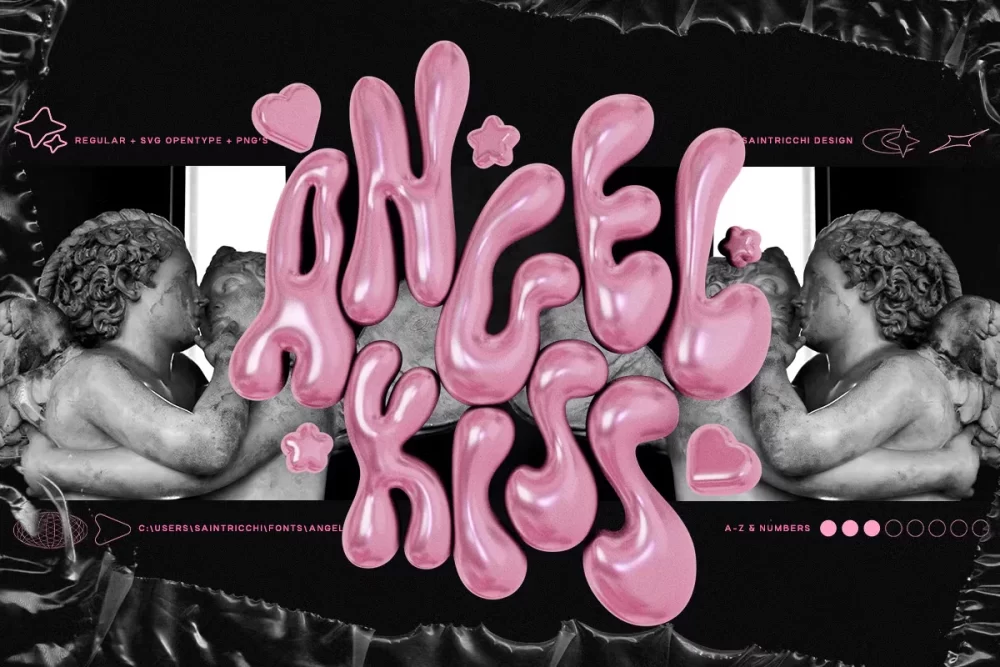
Angel Kiss is a liquid display font known for its elegant and flowing characters. It’s designed to create a visually striking and dynamic effect in designs.
Universal Appeal: Angel Kiss doesn’t just stop at aesthetics; it embraces the Latin alphabet with grace and sophistication. Every character is a testament to the perfect blend of style and readability.
Liquid Elegance: This font isn’t just a tool; it’s an experience. The fluidity of Angel Kiss ensures that each letter seamlessly merges with the next, creating a visual dance that captivates your audience.